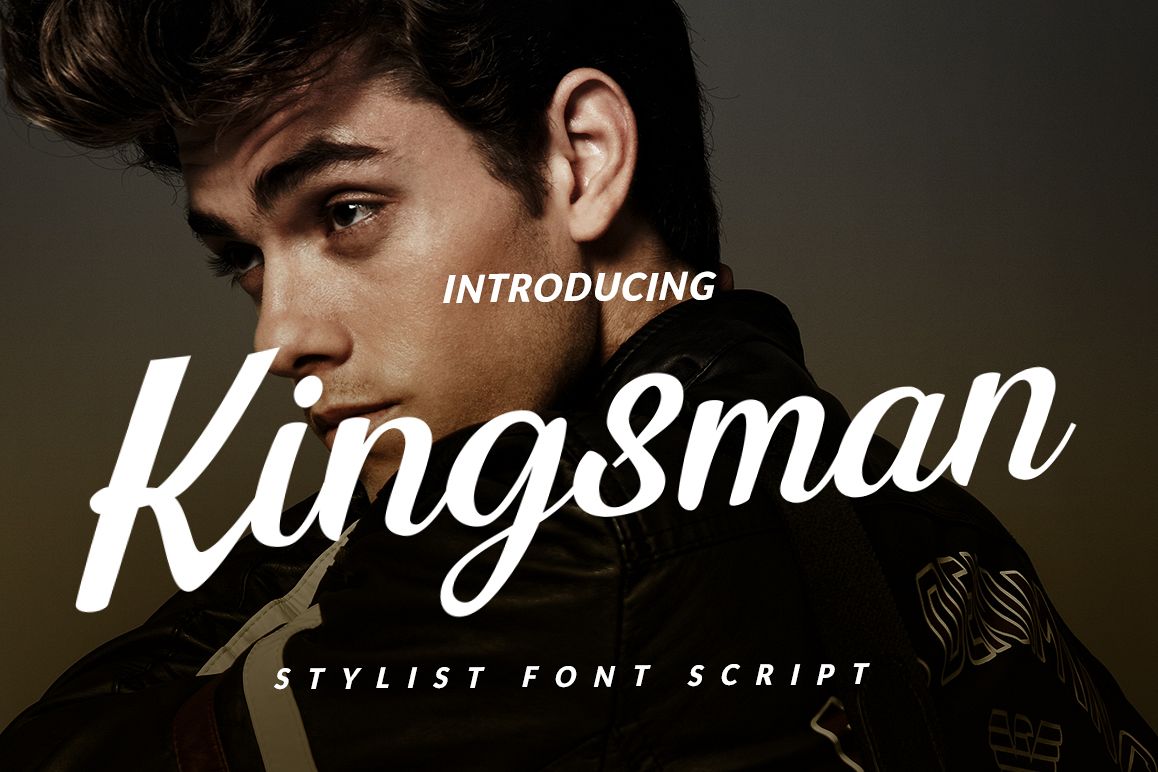
Kingsman Script
Proudly presents latest product Kingsman font. Kingsman is a simple font, comes with alternate font and some ligatures. We keep this font looks elegant, readable, stylish, and catchy. The fonts are great for product logo,wedding card logo, clothing brand logo,Vintage design and much more.